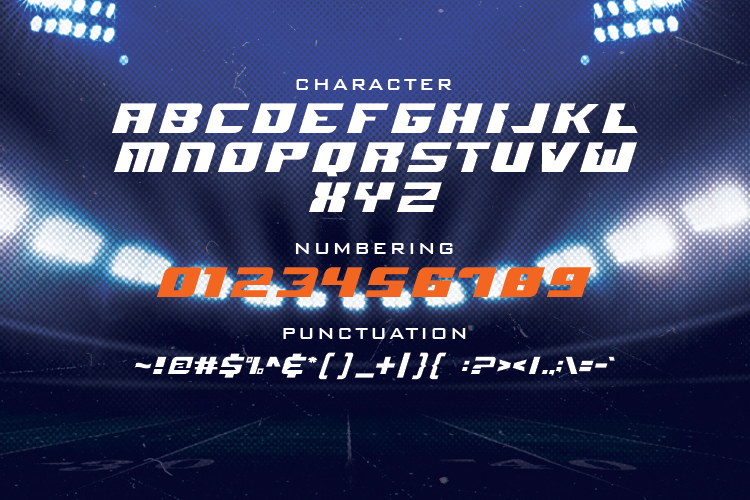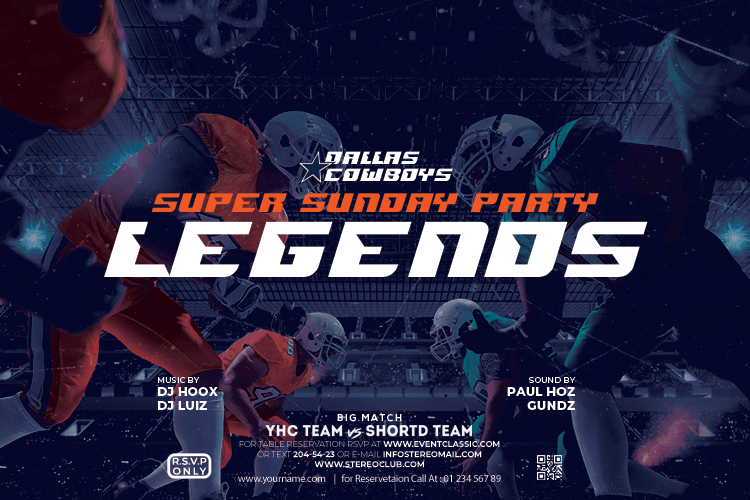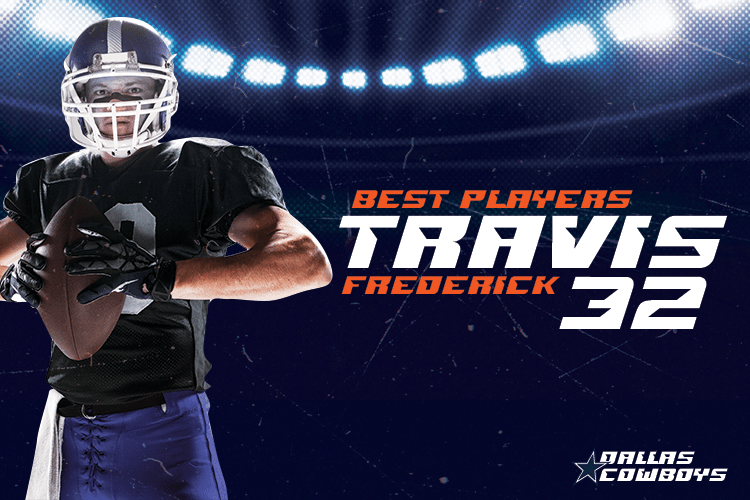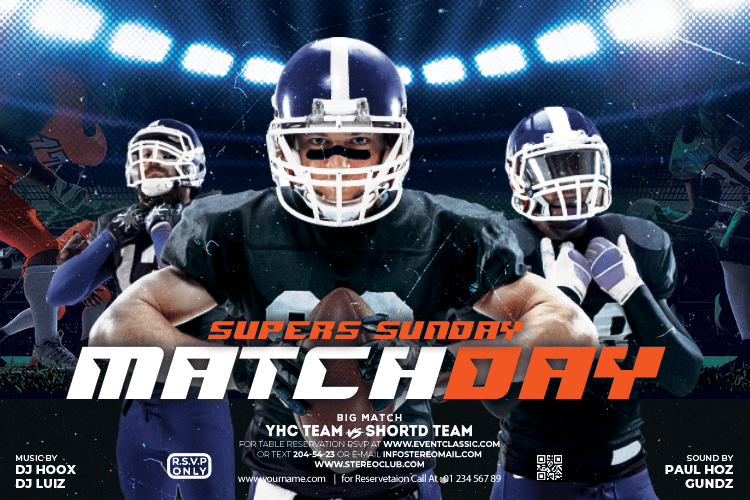
Quarterback Font
Quarterback Display Font is a sports display typeface with style bold italic fonts, good cutouts, and dynamic shape. Ideal for project like gaming racing or sports titles, sport matches, automotive game logos or other modern dynamic headline.